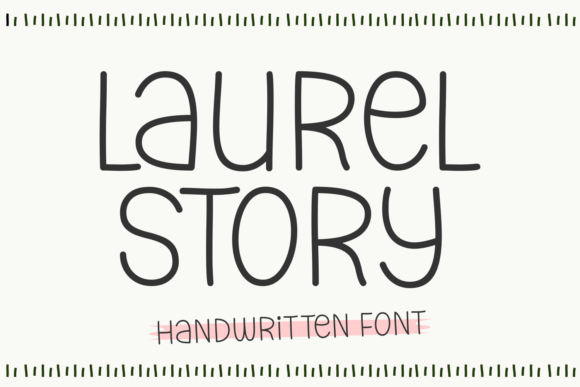
Prepare yourself to be captivated by Laurel Story, a font family that will unleash your creativity and bring a touch of playfulness to your designs. With its youthful spirit and stylish appearance, Laurel Story is the perfect companion for expressing your ideas with a unique charm.
Immerse yourself in a world of endless possibilities, where Laurel Story's versatility knows no bounds. Craft professional designs that exude elegance and sophistication, such as logos, branding materials, and sleek business cards. Unleash your imagination and create captivating posters, flyers, and social media posts that will leave a lasting impression.
Indulge in the beauty of Laurel Story's script style, perfectly suited for adding a personal touch to invitations, greeting cards, and special occasion announcements. Let your words dance across the page with grace and charm, leaving a trail of elegance in their wake.
Laurel Story's user-friendly nature makes it accessible to designers of all levels, allowing you to effortlessly bring your creative visions to life. Experience the joy of seamless editing and customization, ensuring that your designs flawlessly reflect your unique style.
Embrace Laurel Story today and embark on a creative journey that will transform your designs into captivating masterpieces. Let your imagination soar and allow Laurel Story to guide you towards exceptional design outcomes.